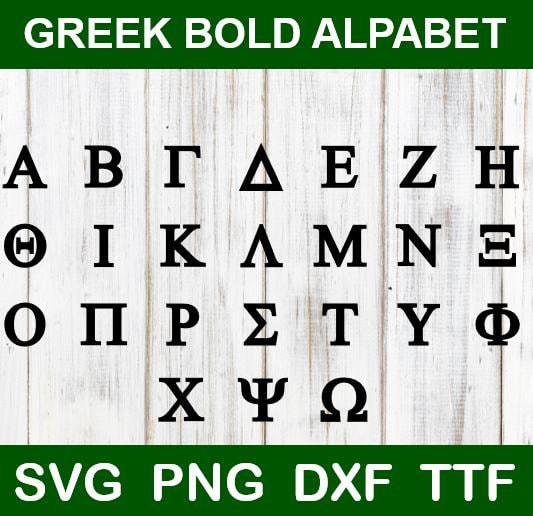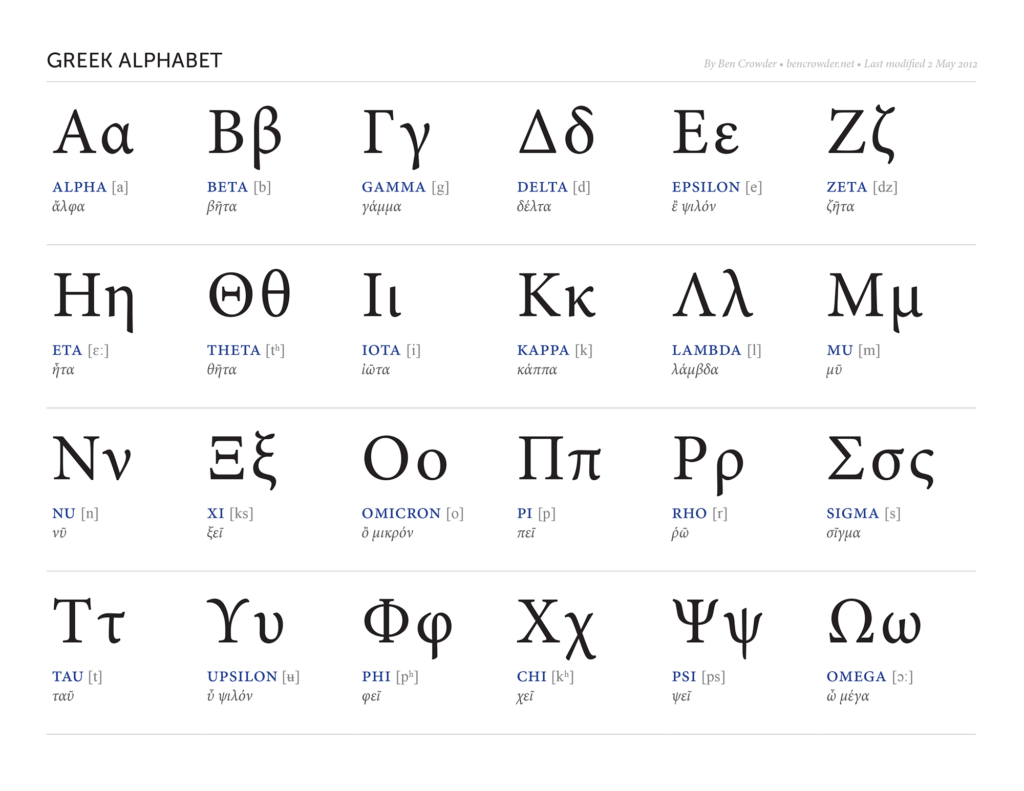
Greek Letter Font Generator . To use the greek font generator, just type a word or a phrase on the text field and get either input transformed into a distinct greek style. Use our free greek font generator to convert your text into greek style letters.
This generator uses unicode characters and symbols to change the text’s look and create beautiful greek text. Type your text and generate greek fonts separate uppercase and lowercase free online. It's easy, fast, and free to.
Perfect for academic content, mathematics, classical styling,. Create text graphics with greek fonts online or download free fonts for local use. Convert text into stylish greek letters with our greek letters text generator. To use the greek font generator, just type a word or a phrase on the text field and get either input transformed into a distinct greek style.
Greek Letter Font Generator - Create text graphics with greek fonts online or download free fonts for local use. Greek text generator is an online tool that styles texts and letters by adding a greek font effect to them, thus making them look beautifully ancient and incredibly attractive. This generator uses unicode characters and symbols to change the text’s look and create beautiful greek text..
Greek Letter Font Generator - Convert text into stylish greek letters with our greek letters text generator. Create text graphics with greek fonts online or download free fonts for local use. Use our free greek font generator to convert your text into greek style letters. It's easy, fast, and free to. Learn about the history and legacy of the greek alphabet and its impact on.
Greek Letter Font Generator - This generator uses unicode characters and symbols to change the text’s look and create beautiful greek text. Learn about the history and legacy of the greek alphabet and its impact on other writing systems. Greek text generator is an online tool that styles texts and letters by adding a greek font effect to them, thus making them look beautifully ancient.
Greek Letter Font Generator - Greek text generator is an online tool that styles texts and letters by adding a greek font effect to them, thus making them look beautifully ancient and incredibly attractive. Perfect for academic content, mathematics, classical styling,. Create text graphics with greek fonts online or download free fonts for local use. To use the greek font generator, just type a word.
Greek Letter Font Generator - Then, download your design in pdf format. It's easy, fast, and free to. Learn about the history and legacy of the greek alphabet and its impact on other writing systems. Greek text generator is an online tool that styles texts and letters by adding a greek font effect to them, thus making them look beautifully ancient and incredibly attractive. Type.
Greek Letter Font Generator - This greek font generator doesn’t necessarily produce actual greek letters but instead mimics the greek effect on your letters and characters. Greek text generator is an online tool that styles texts and letters by adding a greek font effect to them, thus making them look beautifully ancient and incredibly attractive. Then, download your design in pdf format. Use our free.
Greek Letter Font Generator - Perfect for symbols, usernames, fraternity names, and. Learn about the history and legacy of the greek alphabet and its impact on other writing systems. Greek text generator is an online tool that styles texts and letters by adding a greek font effect to them, thus making them look beautifully ancient and incredibly attractive. It's easy, fast, and free to. Perfect.
Greek Letter Font Generator - Perfect for symbols, usernames, fraternity names, and. Create text graphics with greek fonts online or download free fonts for local use. This greek font generator doesn’t necessarily produce actual greek letters but instead mimics the greek effect on your letters and characters. Then, download your design in pdf format. Perfect for academic content, mathematics, classical styling,.
Greek Letter Font Generator - Then, download your design in pdf format. Greek text generator is an online tool that styles texts and letters by adding a greek font effect to them, thus making them look beautifully ancient and incredibly attractive. Learn about the history and legacy of the greek alphabet and its impact on other writing systems. This greek font generator doesn’t necessarily produce.
Greek Letter Font Generator - This generator uses unicode characters and symbols to change the text’s look and create beautiful greek text. Greek text generator is an online tool that styles texts and letters by adding a greek font effect to them, thus making them look beautifully ancient and incredibly attractive. Then, download your design in pdf format. Type your text and generate greek fonts.
Greek Letter Font Generator - It's easy, fast, and free to. Learn about the history and legacy of the greek alphabet and its impact on other writing systems. This generator uses unicode characters and symbols to change the text’s look and create beautiful greek text. Create text graphics with greek fonts online or download free fonts for local use. Perfect for symbols, usernames, fraternity names,.